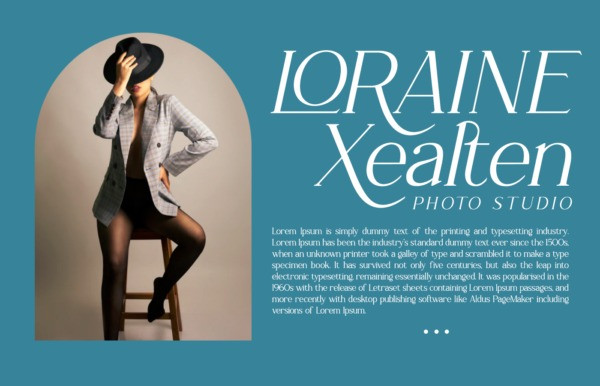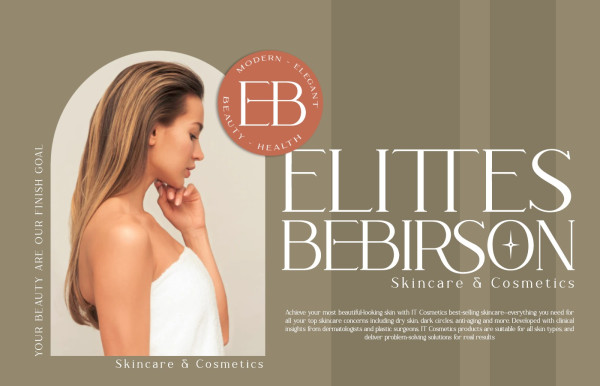
Rottering Font
Rottering Font is the elegant modern serif style with uppercase and lowercase feel nice balanced. Provide alternates and ligatures font in variant style make the design letter looks nice. Honestly it works perfectly for headlines, logos, posters, packaging, T-shirts and much more.